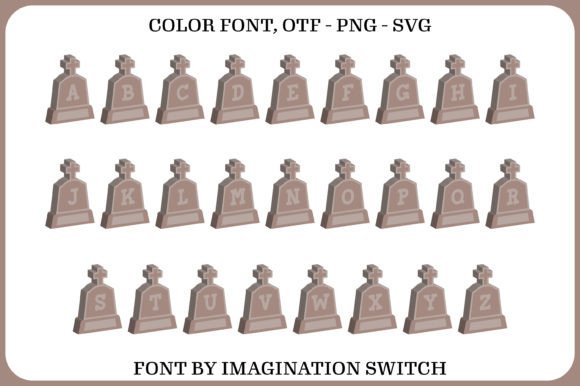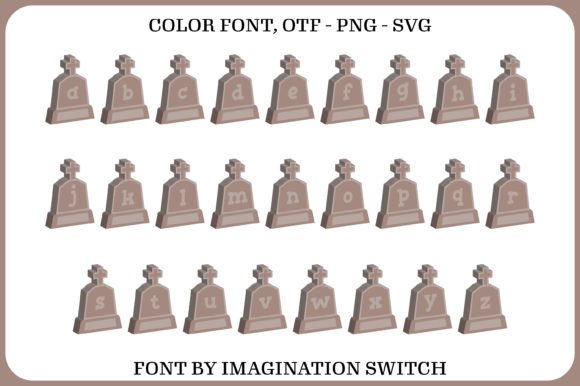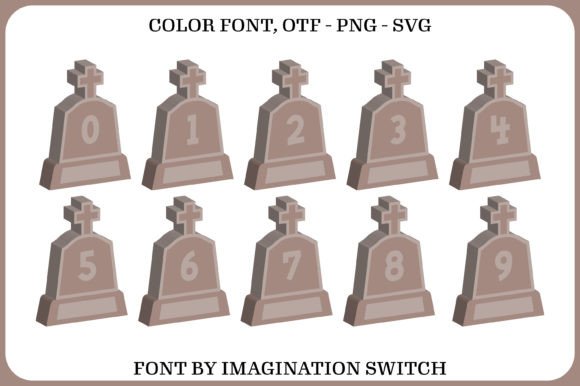
Introduction to Gravestones 3d Font
Have you ever found yourself staring at a blank page, struggling to bring your creative vision to life? The blank canvas can be intimidating, but what if you had the perfect tool to spark your imagination? For designers, finding the right font can be the difference between a mediocre project and a masterpiece. That’s where Gravestones 3d Font comes in – a game-changing typographic creation that’s about to revolutionize your design process.
This stunning font is not just a pretty face; it’s a high-quality design resource that’s packed with features. With its transparent background and visually appealing presentation, Gravestones 3d Font is perfect for designers looking to add a touch of elegance to their creative project. Whether you’re working on a print design, web design, or promotional materials, this font is sure to elevate your design to the next level. And the best part? It’s available for free download, making it an accessible design resource for designers of all levels.
So, what are you waiting for? Dive into the world of Gravestones 3d Font and discover a new world of creative possibilities. In this article, we’ll delve into the features and benefits of this amazing font, and explore why it’s a must-have for any designer looking to take their projects to the next level.
Key Features of Gravestones 3d Font
- High-quality, 3D font design perfect for creative projects requiring a unique and eye-catching aesthetic.
- Transparent background, allowing for seamless integration into various design backgrounds and compositions.
- Unique, 3D font style that adds a touch of elegance and sophistication to any design, ideal for various creative applications.
Honest Review: Gravestones 3d Font
I recently stumbled upon the Gravestones 3d Font, and I must say it’s been a great addition to my design resource collection. This creative project offers a unique perspective on typography, which I appreciate.
The Gravestones 3d Font features high-quality 3D elements that can be easily integrated into various design projects. The transparent background makes it easy to work with and combine with other design elements. I’ve used it in a few of my recent projects, and it’s always been a hit with my clients.
Here are some of the things that work well with the Gravestones 3d Font:
- ✨ High-quality 3D elements that add a professional touch to designs
- ✨ Transparent background for easy integration with other design elements
- ✨ Great for creative projects that require a unique and eye-catching design
However, I do have to mention a few limitations:
- ⚠️ Limited customization options for the font
- ⚠️ May not be suitable for designs that require a lot of text
Experiment with different font sizes and colors to create a unique look.
Use the font in combination with other design elements to create a visually appealing design.
The Gravestones 3d Font is perfect for:
Creating spooky and eerie designs for Halloween or horror-themed projects.
Designing unique and eye-catching logos or branding materials.
Adding a touch of elegance and sophistication to wedding invitations or other special occasion designs.